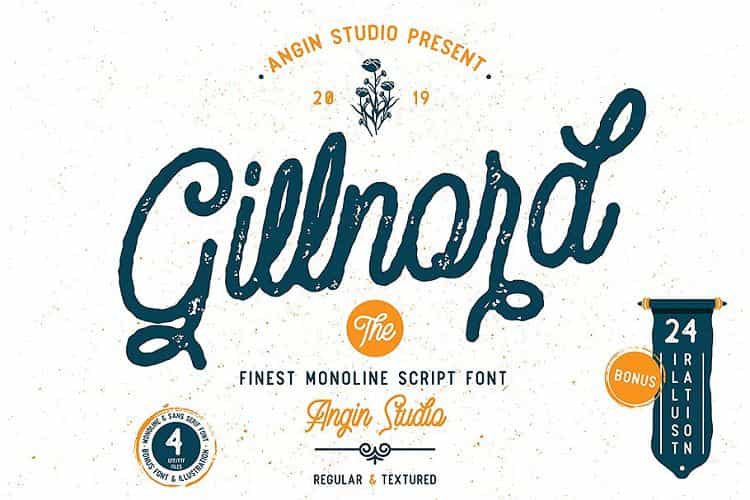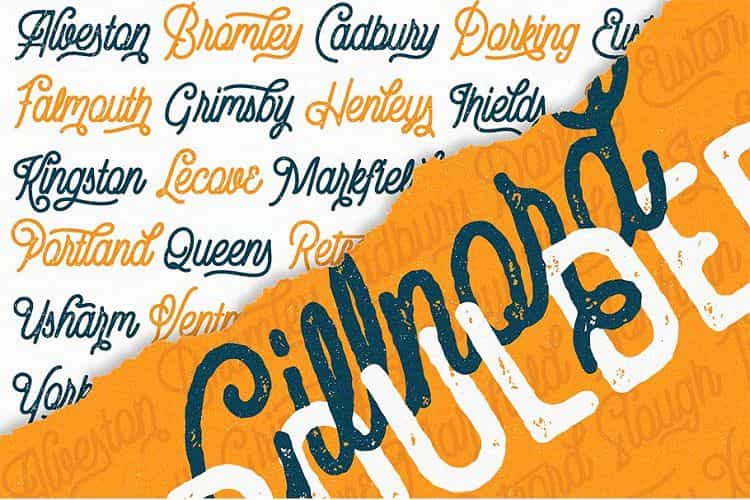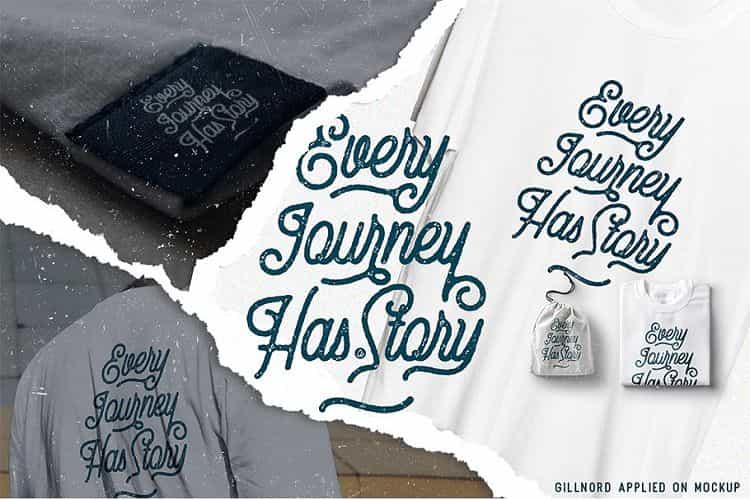
Discover Gillnord Script Font, part of the Brush Calligraphy collection—a versatile and unique font perfect for adding a personal touch to your projects. Download it for free and enjoy crafting designs with style, from invitations to social media posts. This font is available exclusively for personal use, giving you the freedom to create without limits. Unlock your creativity with Gillnord Script Font today!
Introducing Gillnord Font. Gilnord is a retro monoline script which was created by us using our hand lettering. the font was designed with much attention to the details, everything in it was made perfect. Gillnord have a distinctive form that makes it different and noticeable, also it will make your design look more aesthetic.